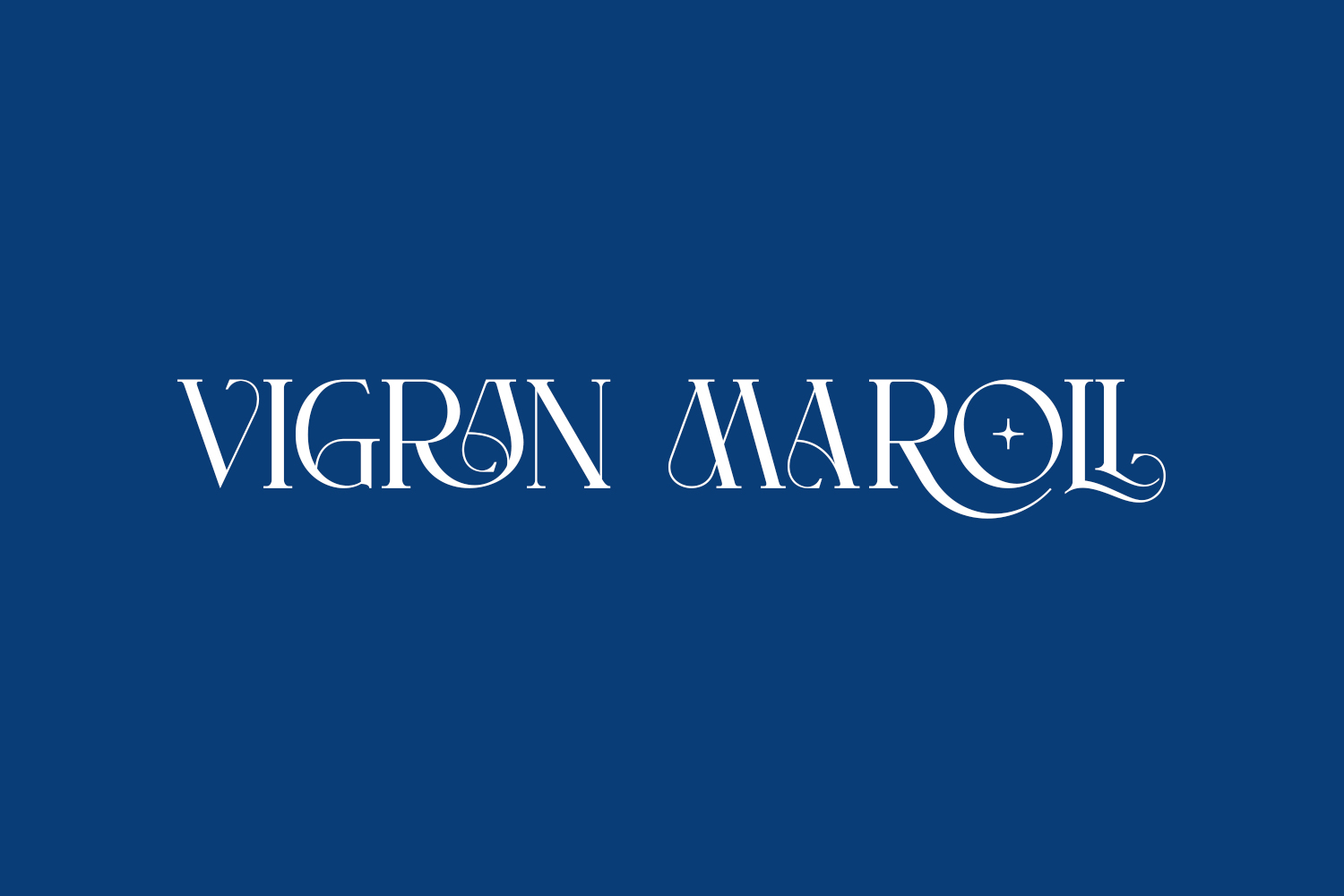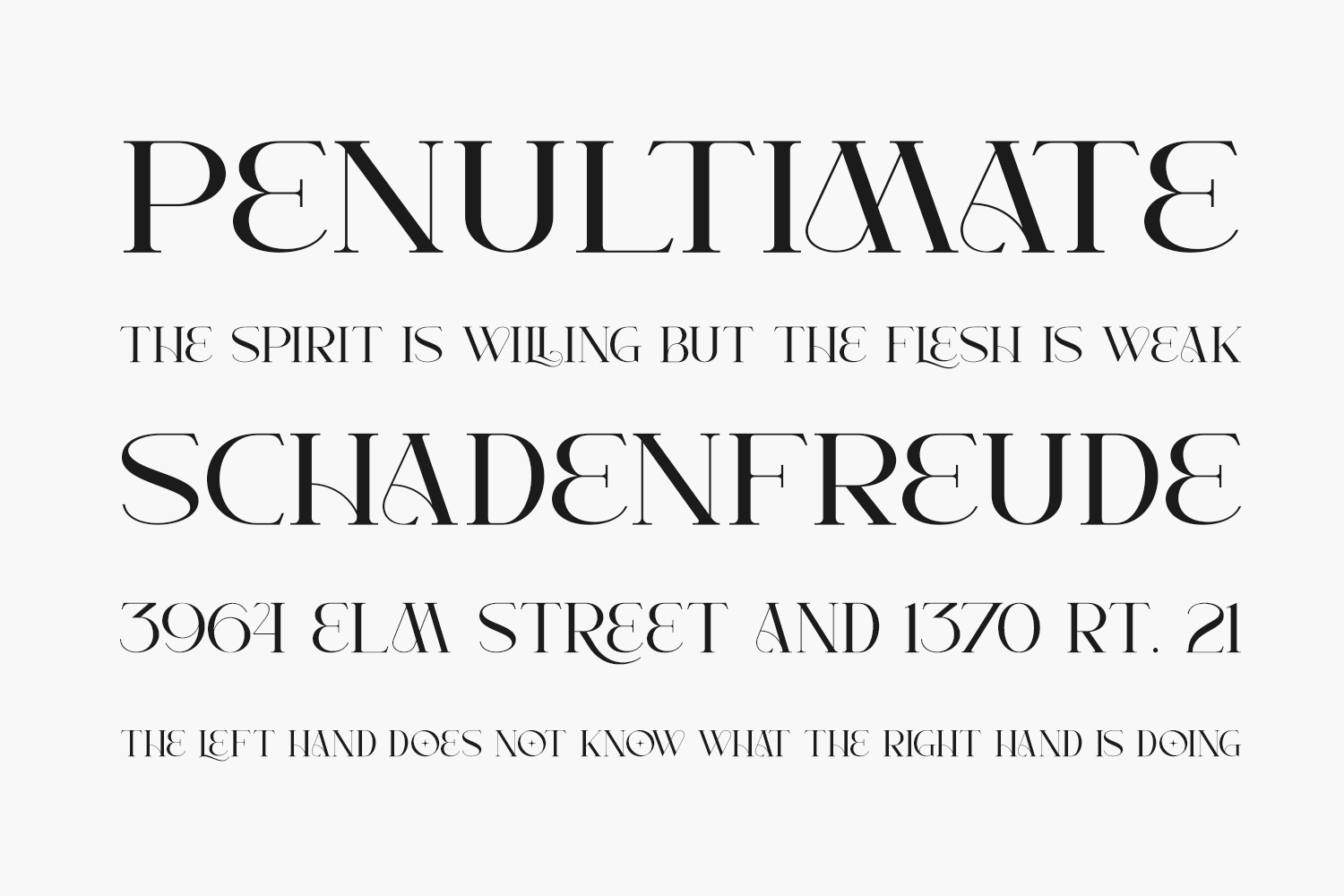
Vigran Maroll Free Font is a charming display typeface that exudes a sense of elegance and sophistication. Its flowing curves and delicate serifs give it a graceful and refined appearance, making it a perfect choice for creating stylish and eye-catching headlines, titles, and other design elements. Whether you’re working on a high-end fashion or luxury brand, or simply looking to add a touch of class to your personal project, the Vigran Maroll Free Font is sure to impress.